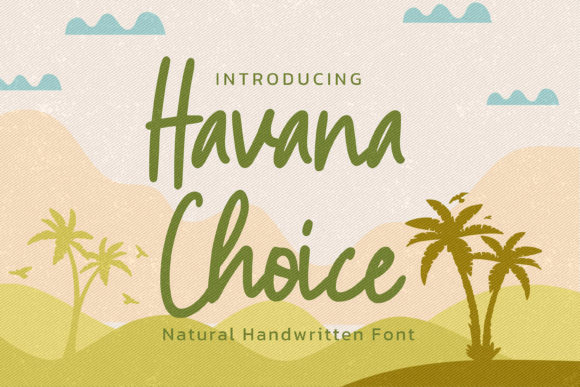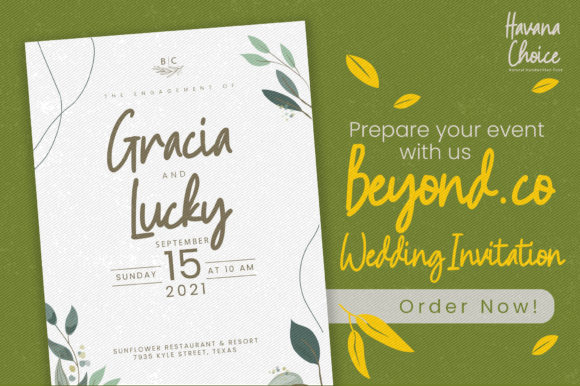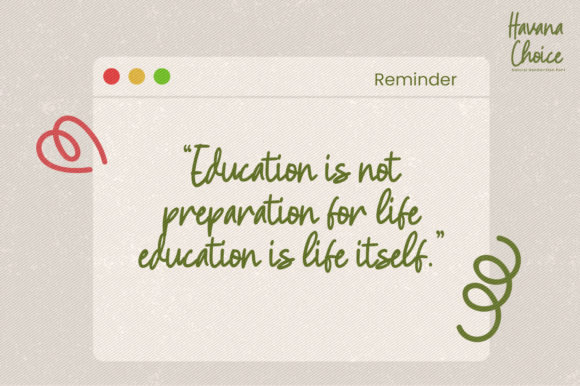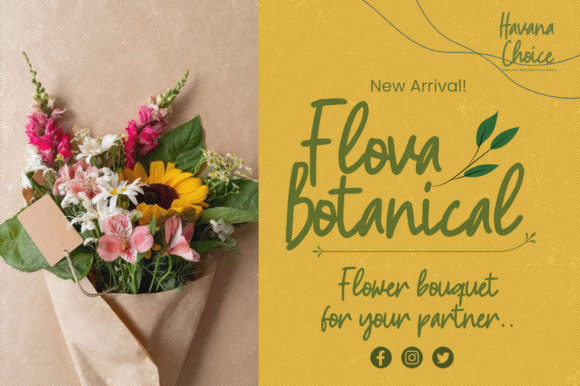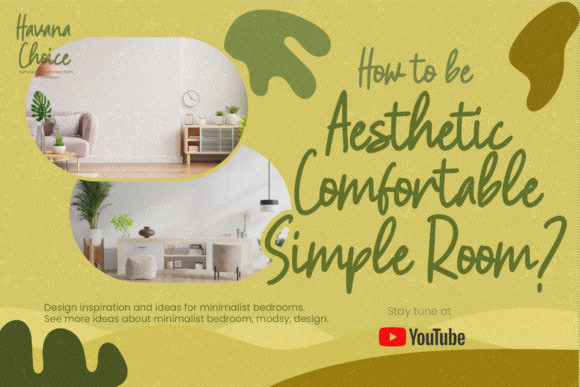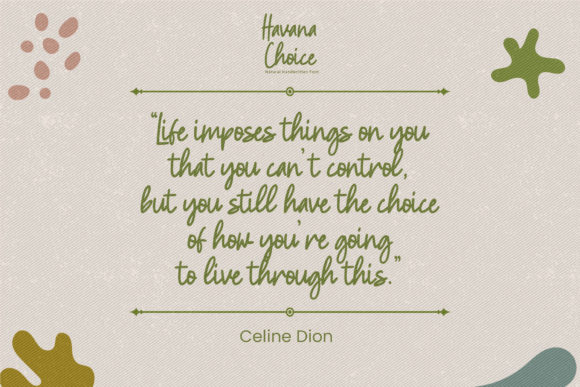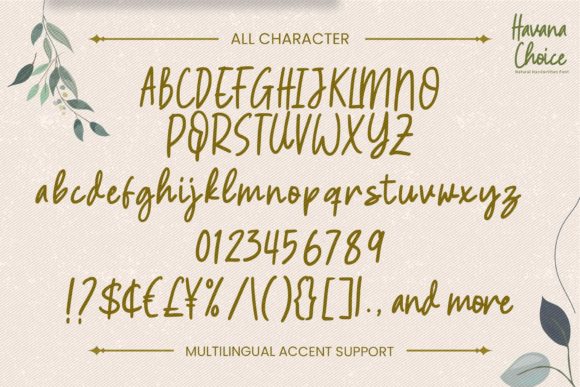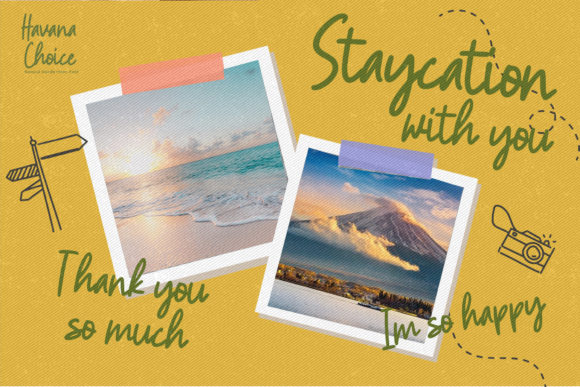
Havana Choice Font
About Havana Choice Font
Havana Choice is a casual and trendy looking handwritten font. This gentle font will look gorgeous on a variety of design ideas. It will add a neat and natural touch to each of your projects!